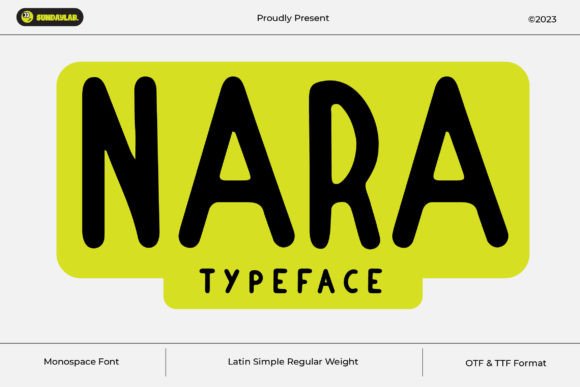
Immerse yourself in the world of Nara Font, a captivating creation by Sundaylab. This sans serif masterpiece seamlessly blends elegance with modernity, a testament to its timeless appeal. Its crisp lines and minimalist design grant it effortless readability on any digital or printed canvas.
But Nara Font is more than just an aesthetically pleasing typeface; it's an instrument of creative expression. Its subtle curves and gentle slopes evoke a sense of tranquility, inviting you to craft designs that exude sophistication. Whether you're crafting captivating headlines, designing alluring posters, or creating visually stunning websites, Nara Font will elevate your creations to new heights.
This versatile font is a sculptor of emotions, helping you convey messages with precision and flair. Its versatility extends beyond its aesthetic charm; its PUA encoding empowers you to effortlessly access a treasure trove of glyphs and swashes. Unleash your creativity and personalize your designs like never before.
Nara Font is the perfect companion for designers seeking a touch of elegance, a dash of simplicity, and a whole lot of versatility. It's the ultimate font for those who dare to make a statement with their designs, leaving a lasting impression on every viewer.
With Nara Font at your disposal, the possibilities are endless. Embrace its timeless beauty, harness its versatility, and craft designs that will captivate and inspire. Join the ranks of discerning designers who have unlocked the power of Nara Font and elevate your creative endeavors to unparalleled heights.